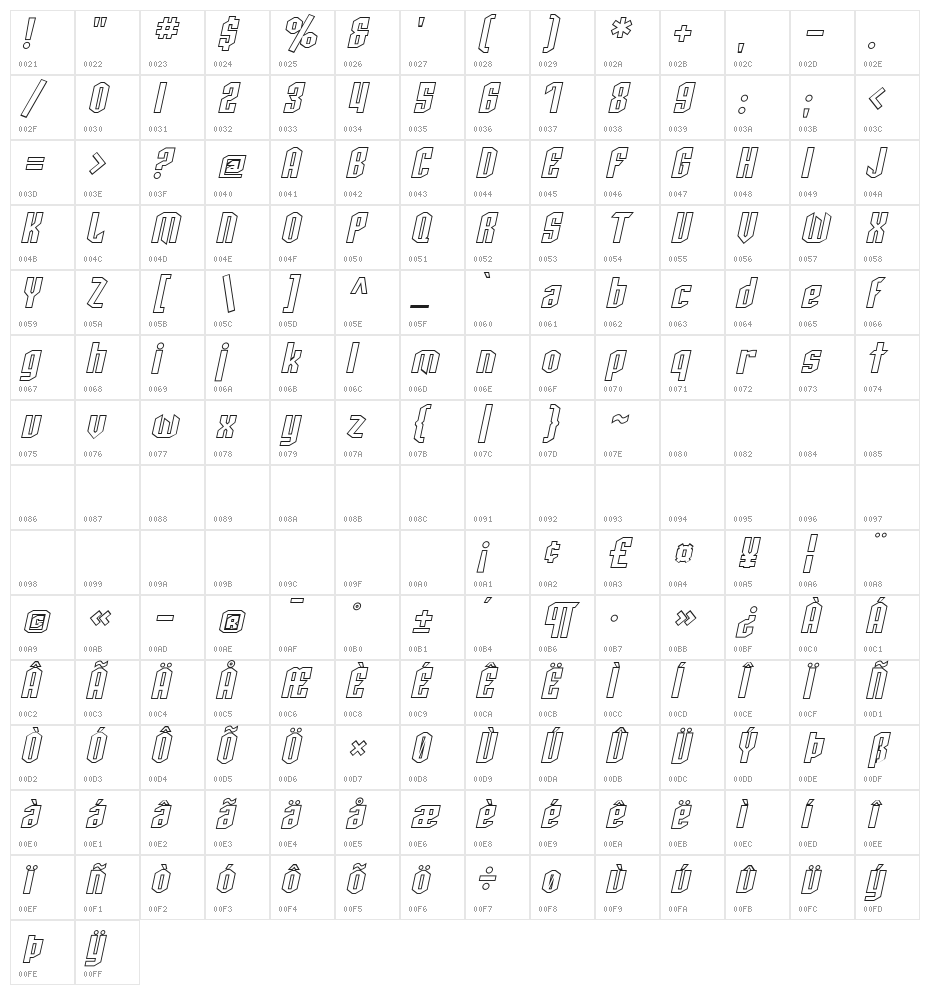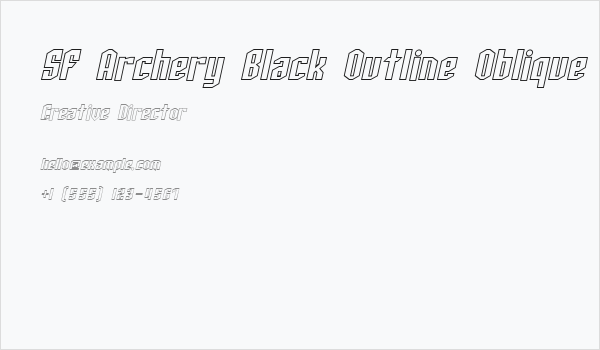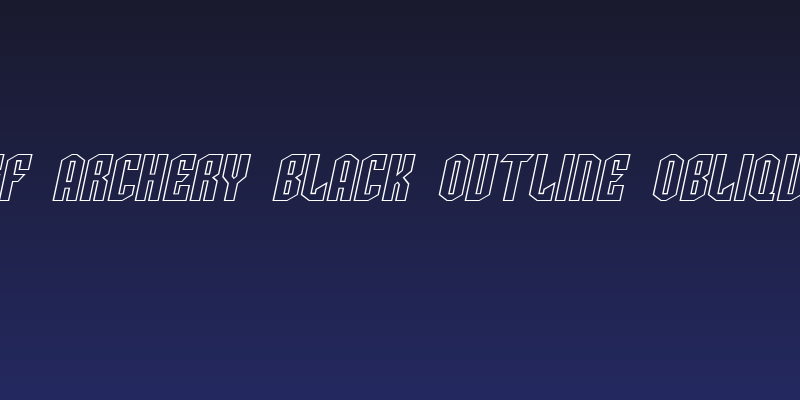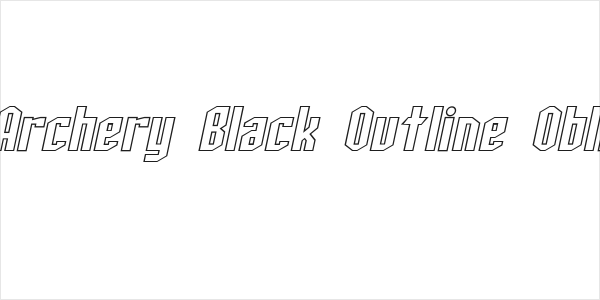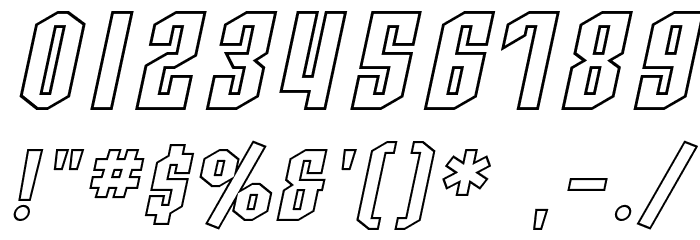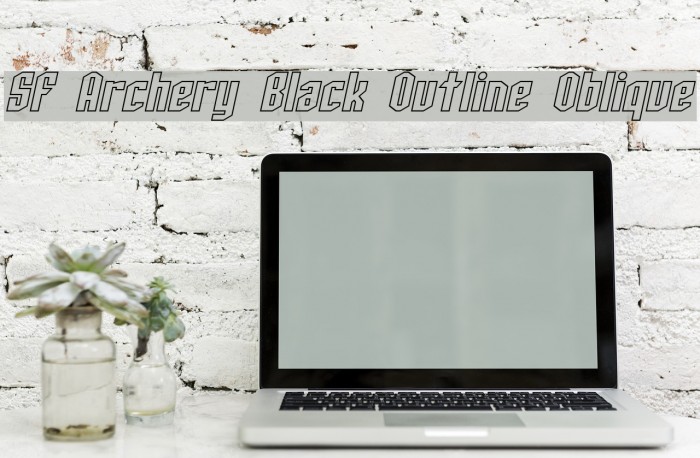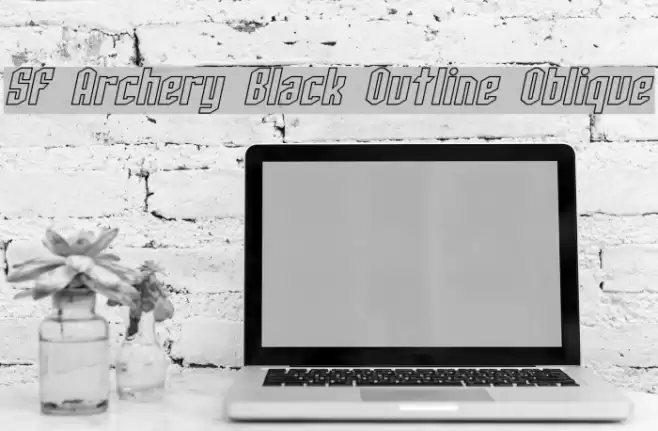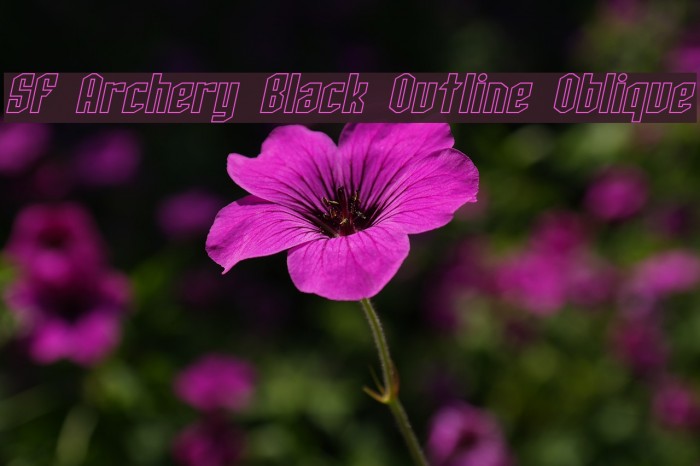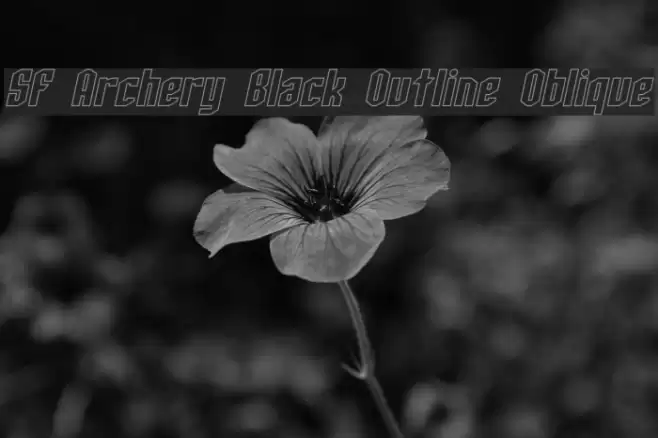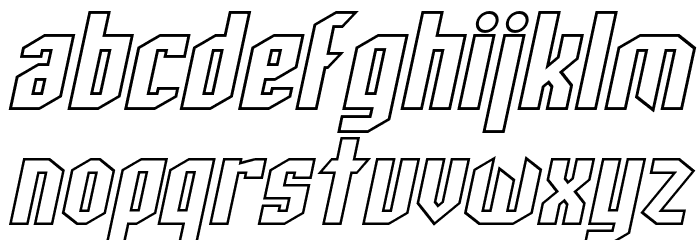
SF Archery Black Outline Oblique Font
SF Archery Black Outline Oblique Description
This font features a bold, outlined style with a distinct oblique slant, giving it a dynamic and modern appearance. The characters are designed with sharp angles and clean lines, creating a sense of movement and energy. The uppercase and lowercase letters maintain a consistent geometric form, while the numbers and special characters complement the overall design. The outlined nature of the font adds a layer of depth, making it suitable for eye-catching displays. Its unique style makes it ideal for projects that require a strong visual impact.
| Proposed Projects | Ideal for sports branding, posters, headlines, and dynamic graphic designs. |